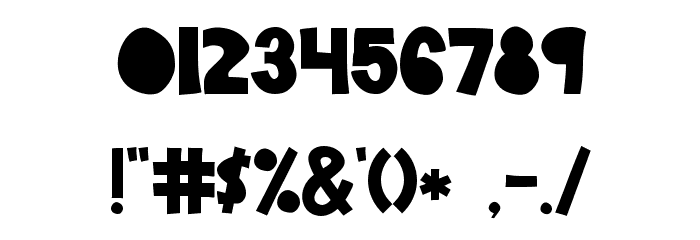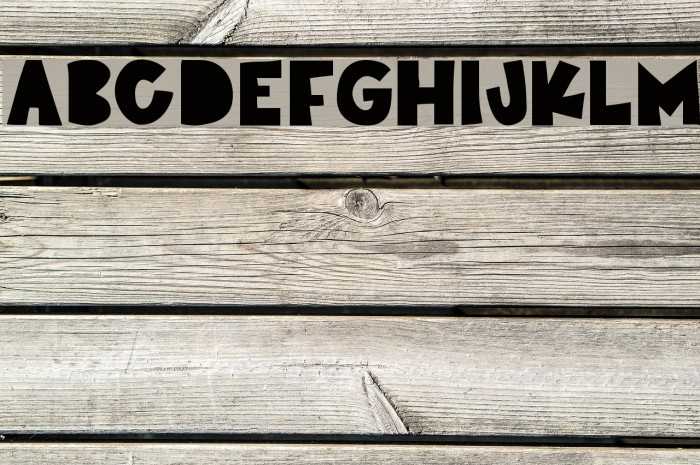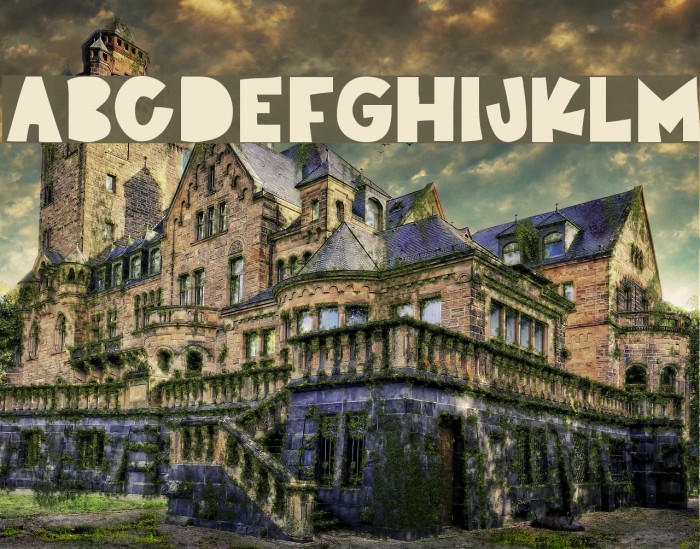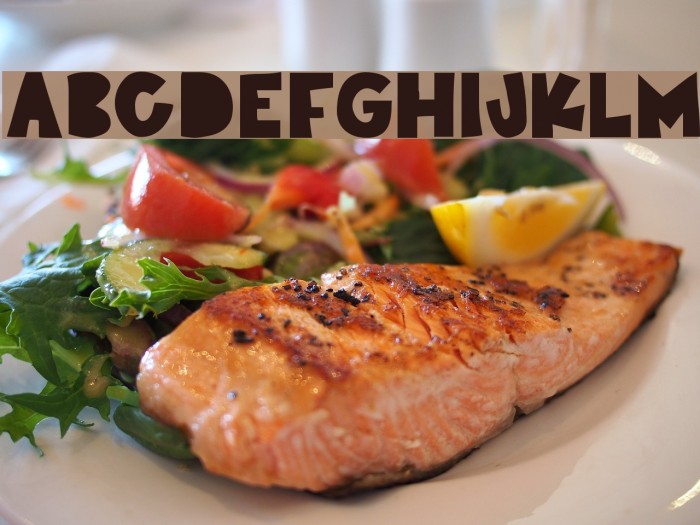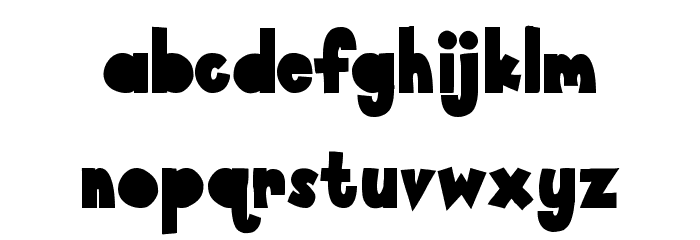
Paper Cutout Font
Paper Cutout Description
This playful and bold font features a whimsical, cut-out style reminiscent of paper crafts. The characters are irregular and slightly uneven, giving a handmade, artistic feel. The uppercase letters are large and commanding, while the lowercase letters maintain the same playful aesthetic. Numbers and special characters are consistent with the overall style, making them suitable for creative and informal designs. The font's unique appearance makes it stand out, perfect for projects that require a touch of fun and creativity.
A playful, bold font with a whimsical, cut-out style from Uncategorized fonts.
- Proposed Projects: Ideal for children's books, playful branding, party invitations, and creative posters.